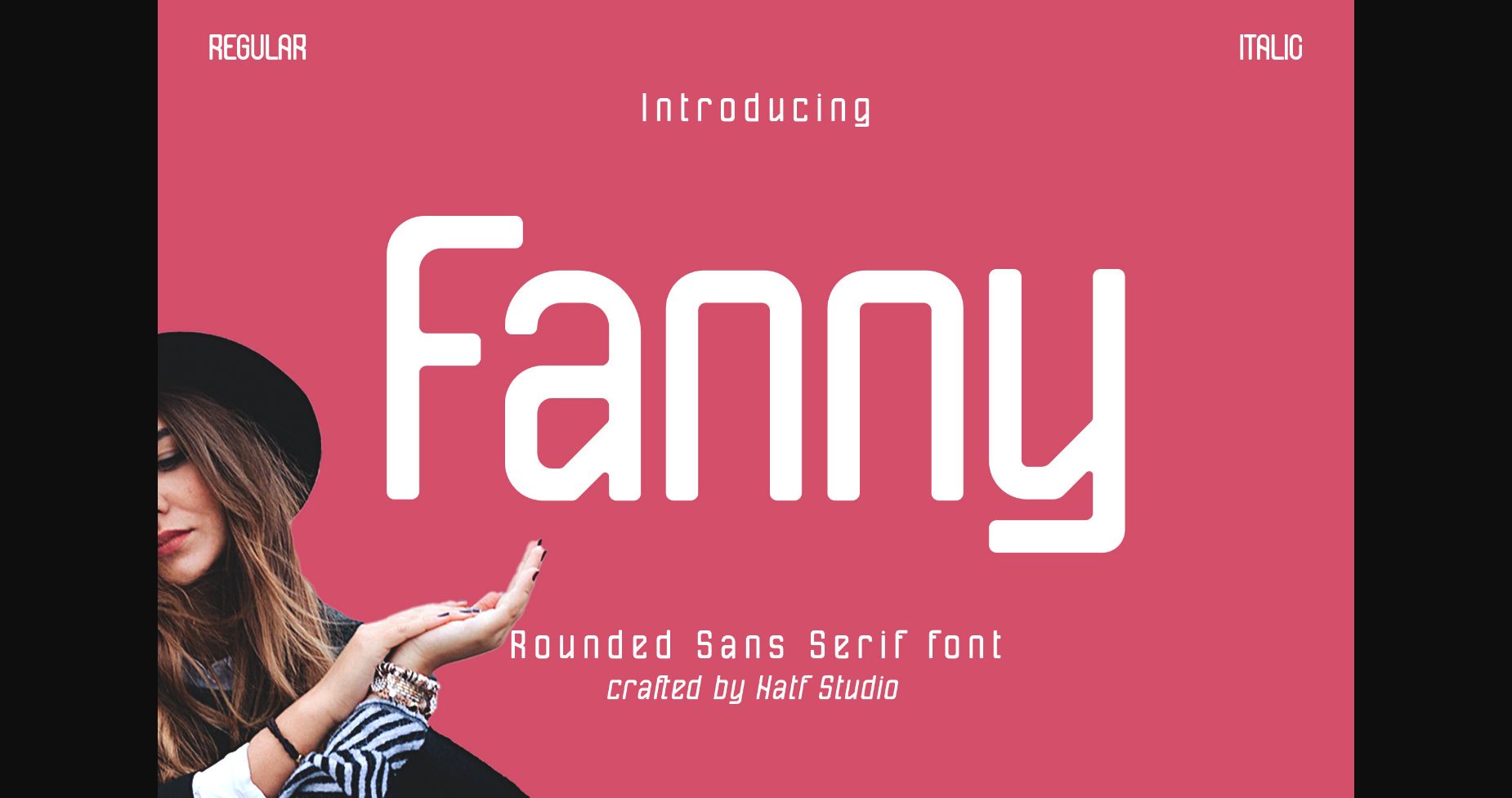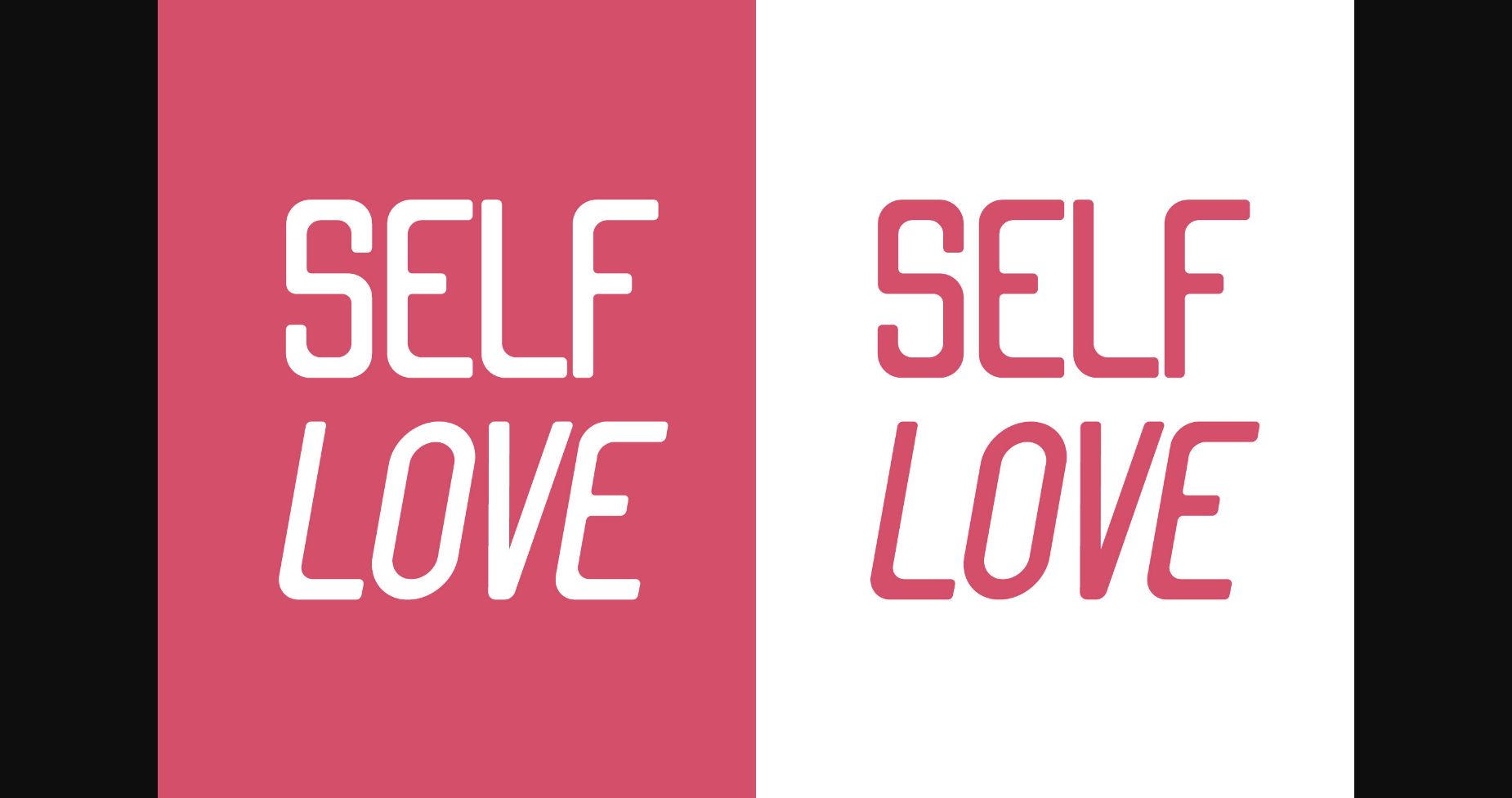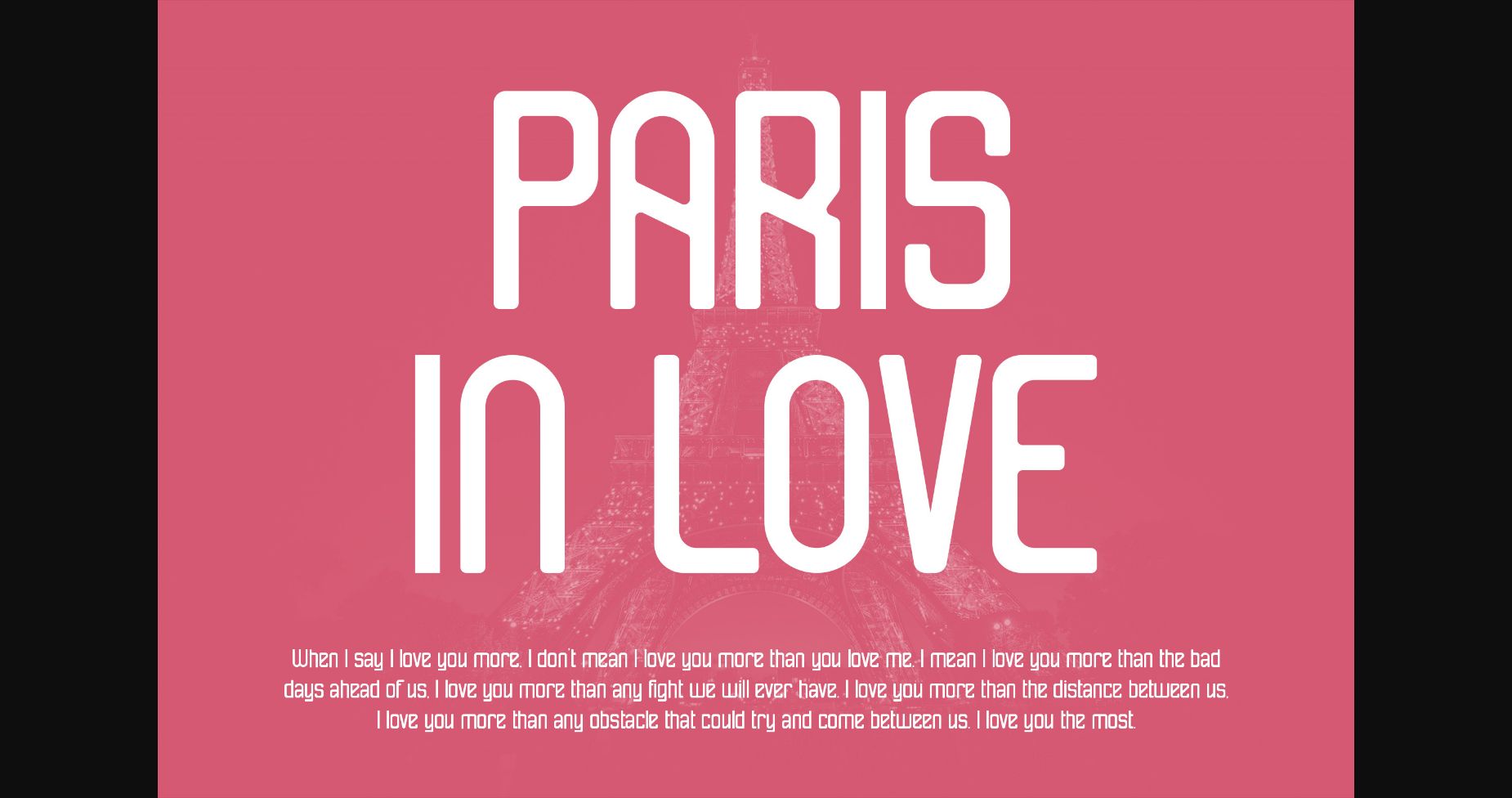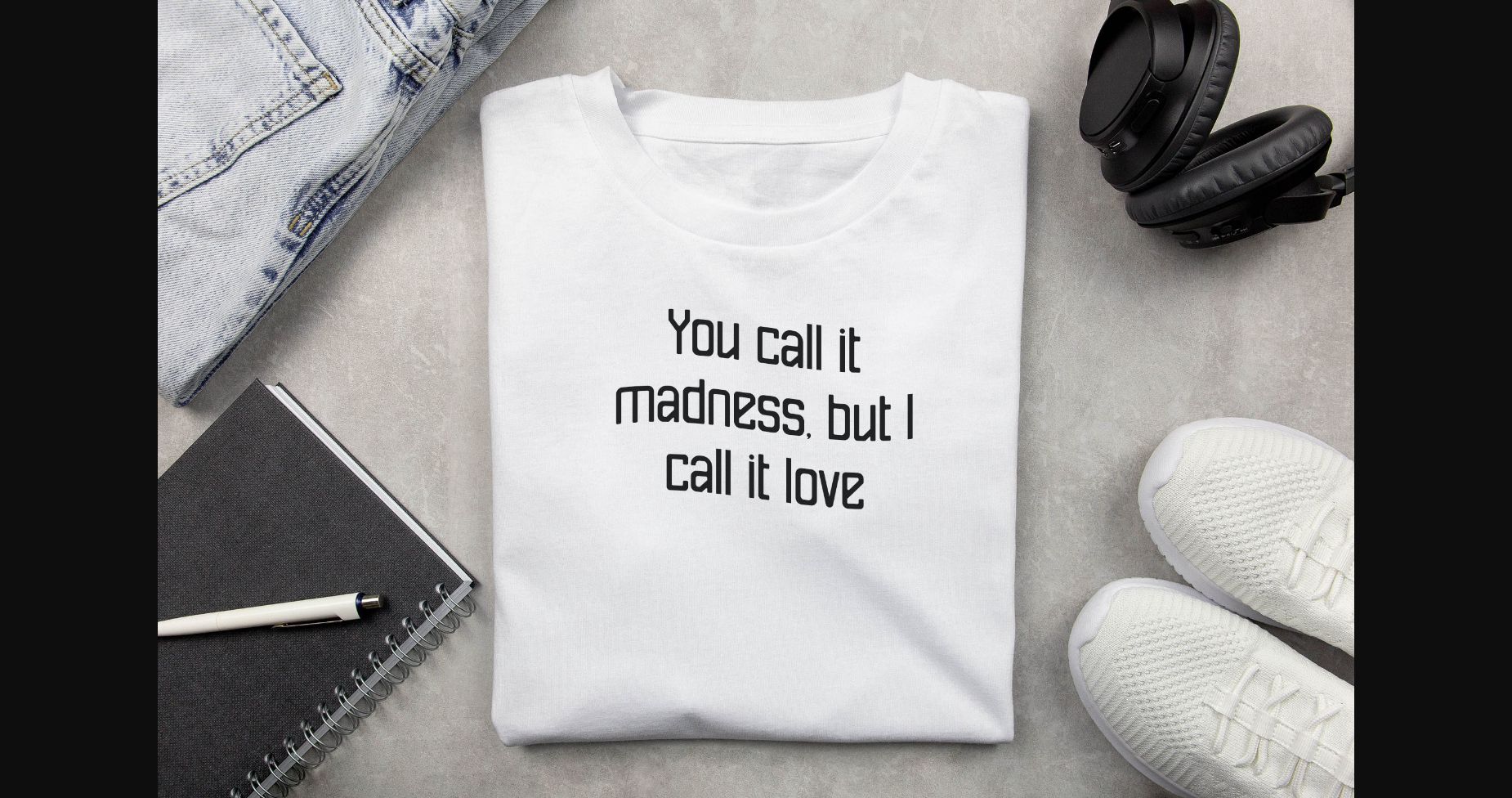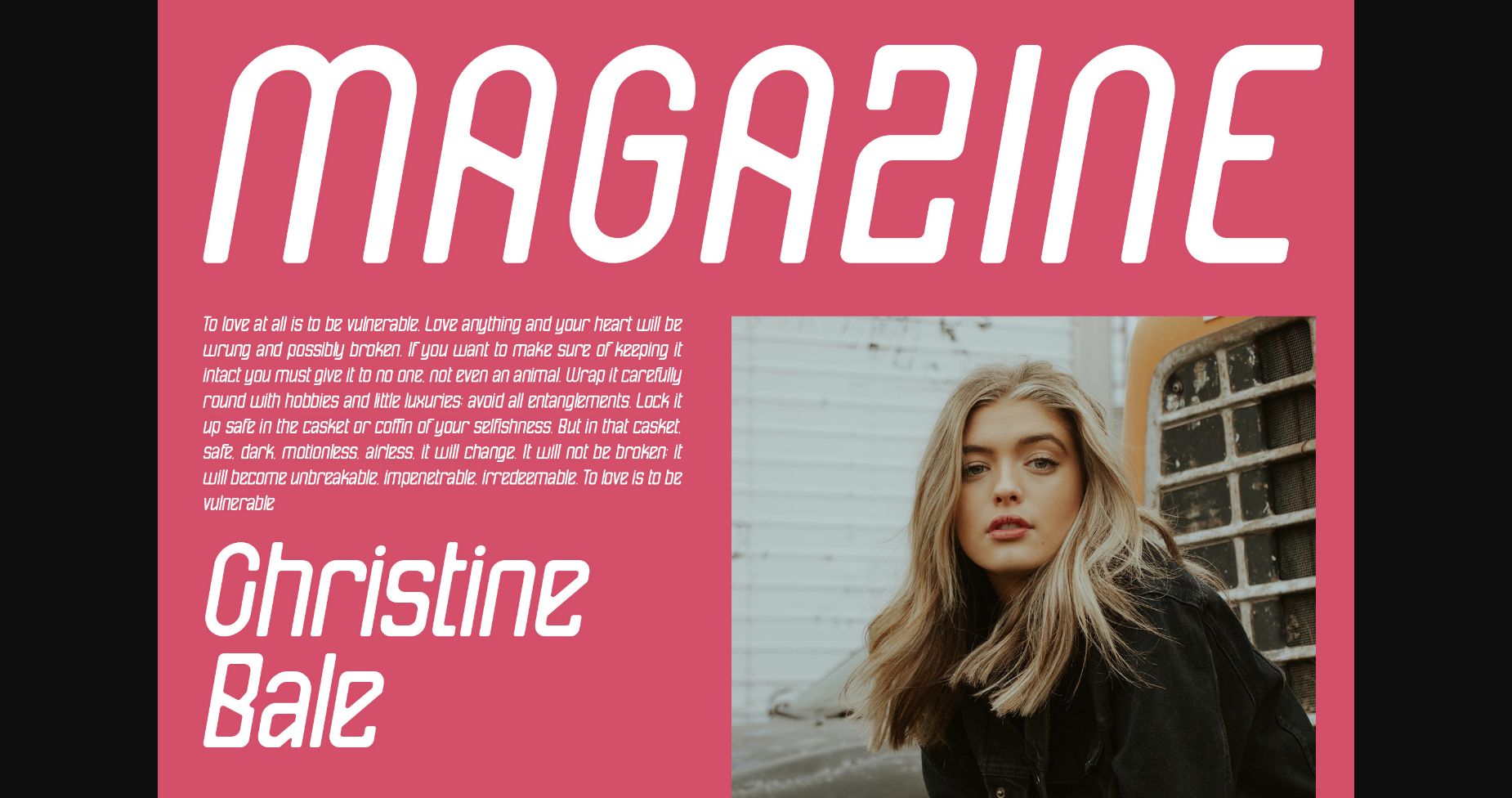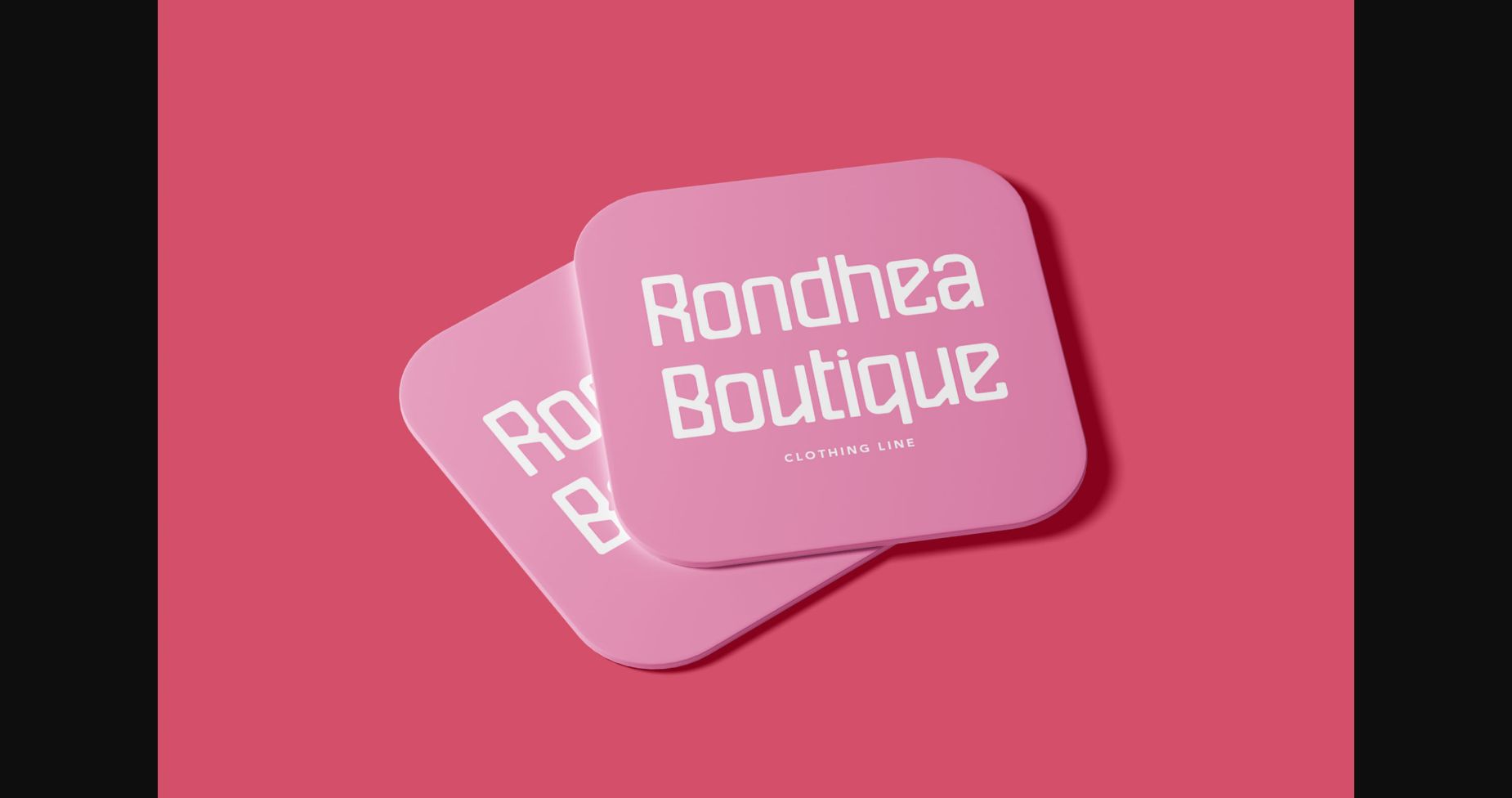
About Fanny Font
Fanny – Rounded Sans Serif Font is a font with 2 STYLE FONT, perfect for branding projects, logos, wedding designs, media posts, advertisements, product packaging, product designs, labels, photography, watermarks, invitations, stationery, and any project who need handwritten dishes.